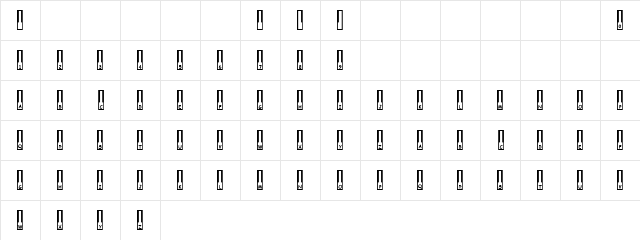
All That Jazz Regular Free Font
All That Jazz Regular
Design Context for All That Jazz
All That Jazz is a composed and adaptable typeface that performs quietly and consistently across a wide range of design contexts.